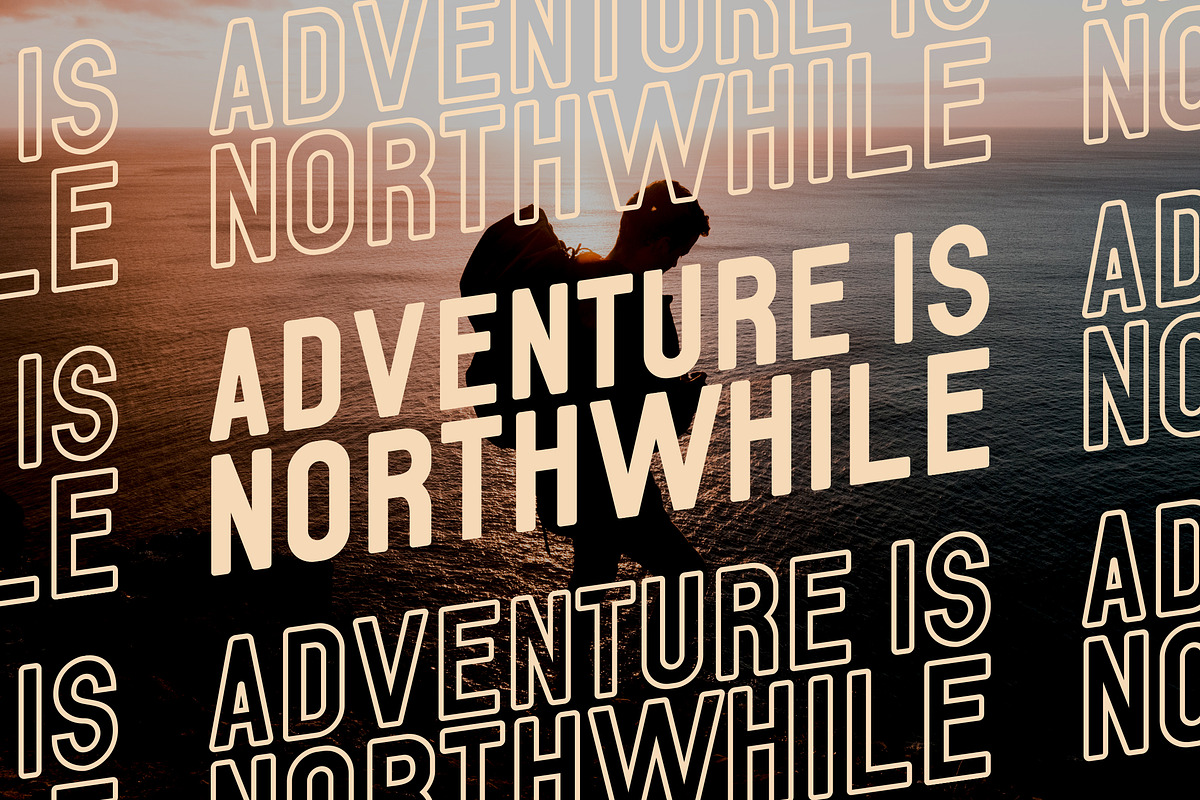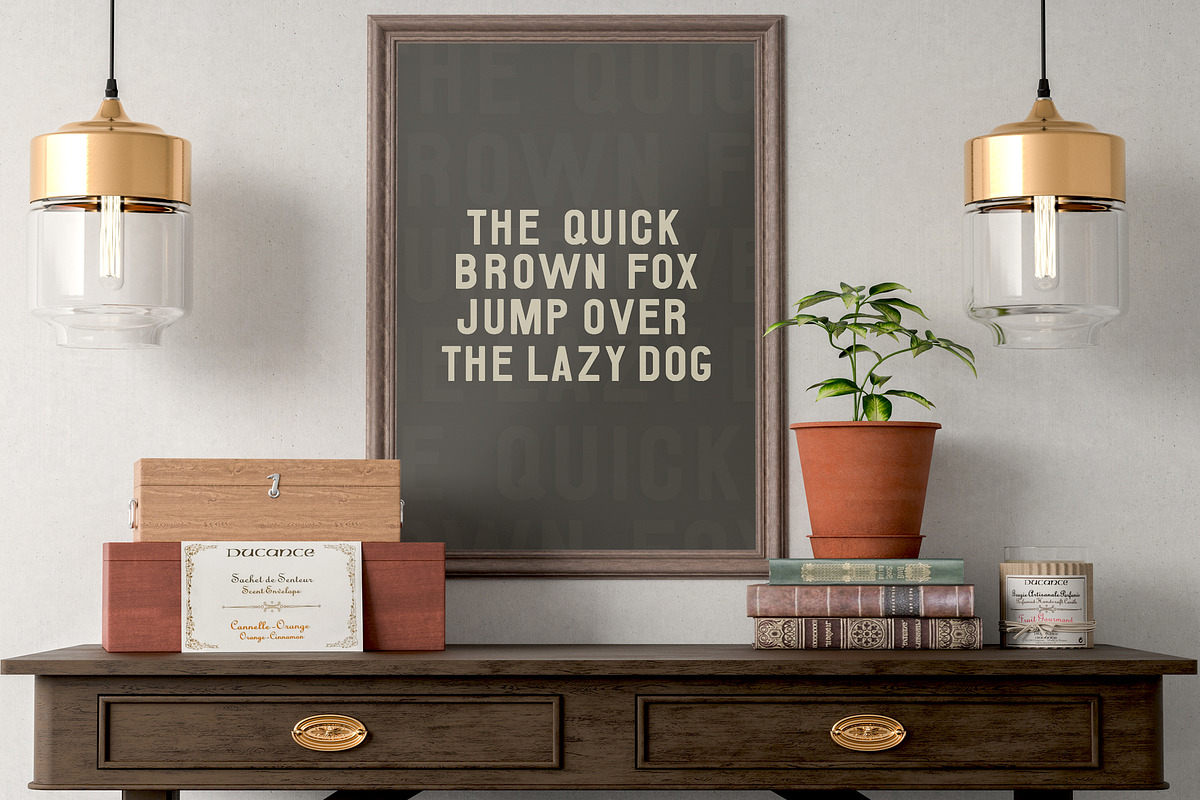
Fusena - Duos Handwritten Font
"Fusena" is a font display that is made by hand, inspired by classic posters.
comes with uppercase, lowercase, numerals, punctuations and so many variations on each character include OpenType alternates, common ligatures and also additional swash to let you customize your designs. Perfect to use for Logotype, Letterhead, Poster, Apparel Design, Label and etc.